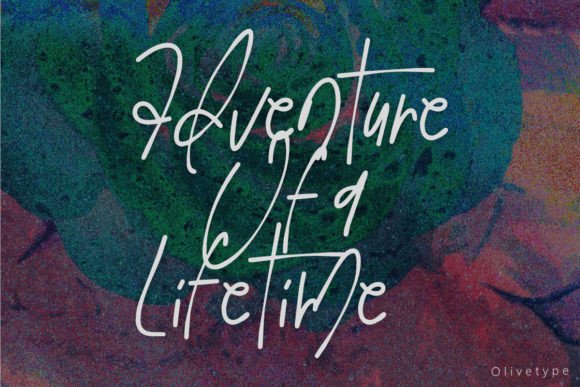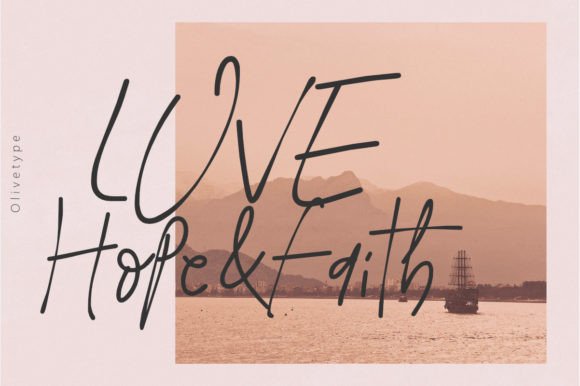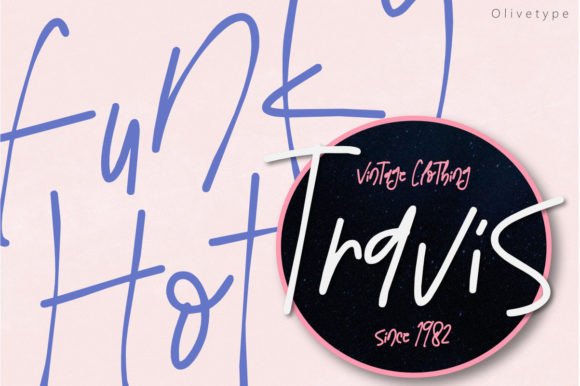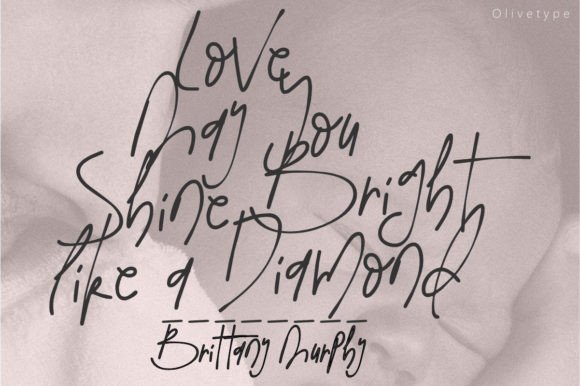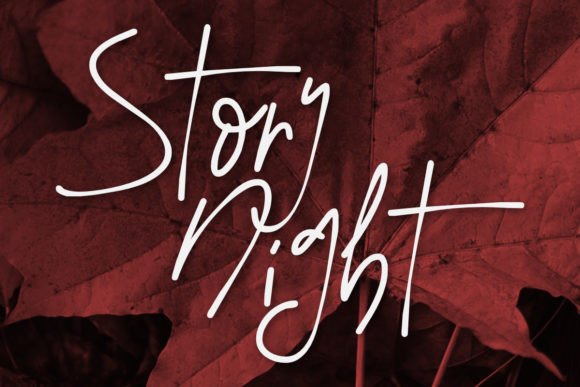
Introduction to Fitsy Font
Have you ever found yourself staring at a blank canvas, searching for the perfect spark to ignite your creative project? Maybe it was a late-night brainstorming session, a sudden burst of inspiration, or a simple doodle that got you excited about a new design idea. Whatever it is, we’re here to help you fuel that passion with the Fitsy Font – a fun and playful handwritten font that’s sure to elevate your design game.
As a valuable design resource, the Fitsy Font offers a high-quality, free download that’s perfect for adding a personal touch to your creative projects. With its transparent background, you can easily layer it over any image or design element, creating a beautiful and cohesive look. Whether you’re a seasoned designer or just starting out, the Fitsy Font is a must-have in your toolkit – and we’re excited to share it with you.
Key Features of Fitsy Font
• High-quality, professional design suitable for various creative projects.
• Comes in a transparent background version, allowing for easy integration into various design applications.
• Unique, modern design with a distinctive style, perfect for adding a touch of creativity to your project.
Honest Review: Fitsy Font
As a designer, I’m always on the lookout for high-quality design resources to elevate my creative projects. Recently, I stumbled upon the Fitsy Font, and I’m excited to share my thoughts on this versatile font.
• ✨ The Fitsy Font offers a unique, modern aesthetic that’s perfect for contemporary designs.
• ✨ The transparent background allows for easy customization and integration with other design elements.
• ✨ The font is highly legible, even at small sizes, making it ideal for body text and headings.
• ⚠️ The Fitsy Font may not be suitable for traditional or formal designs, as its modern style may not fit the tone.
• ⚠️ The font’s character set is limited, which may be a concern for designers who require a comprehensive set of characters.
Overall, I’m impressed with the Fitsy Font’s quality and versatility. While it may have some limitations, it’s an excellent choice for designers working on modern and creative projects. With its high-quality design and transparent background, the Fitsy Font is a valuable addition to any design resource library.
Common Use Cases and Tips
Fitsy Font is ideal for logos, branding, and typography-based designs. To get the most out of it, use it with a transparent background to create a seamless and modern look. Experiment with different font sizes and styles to add depth and interest to your design.